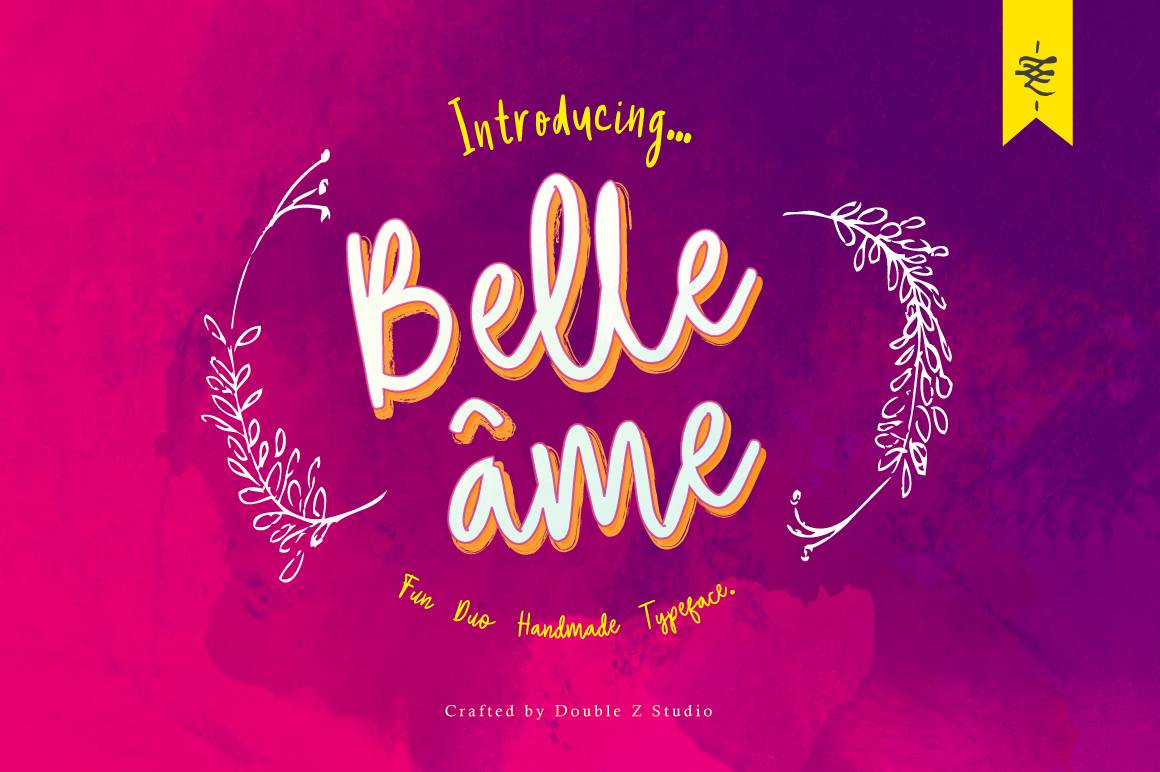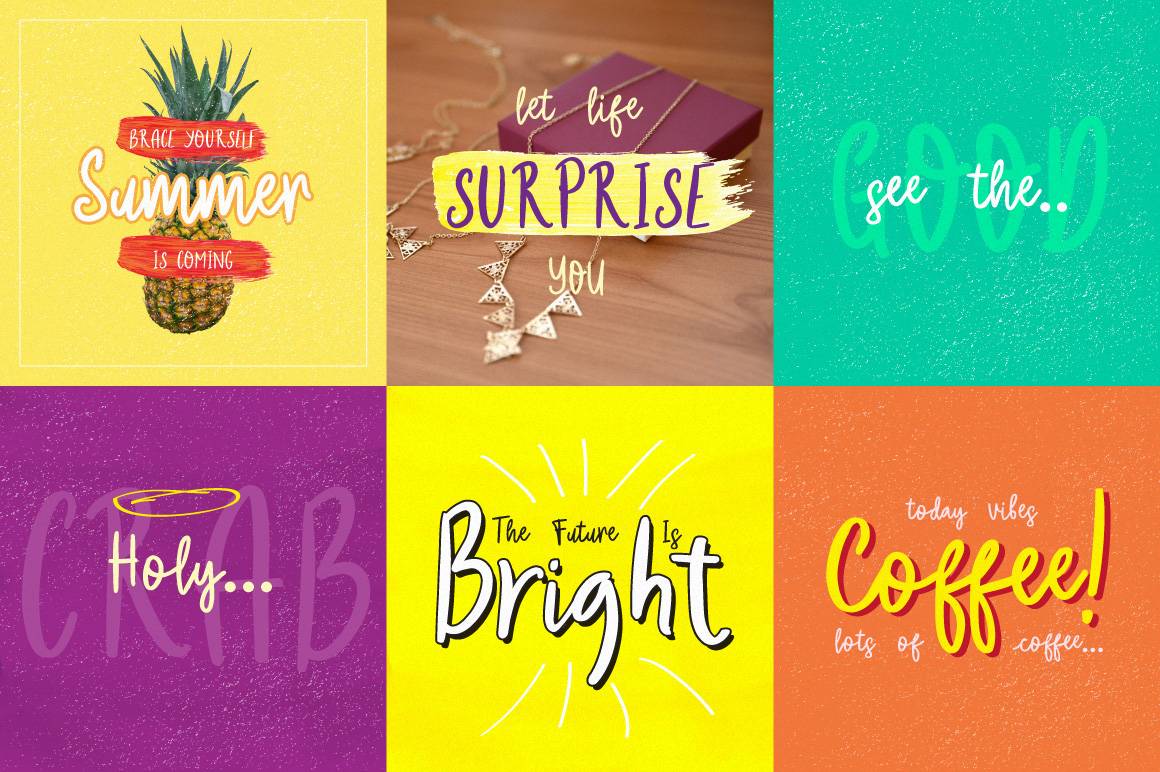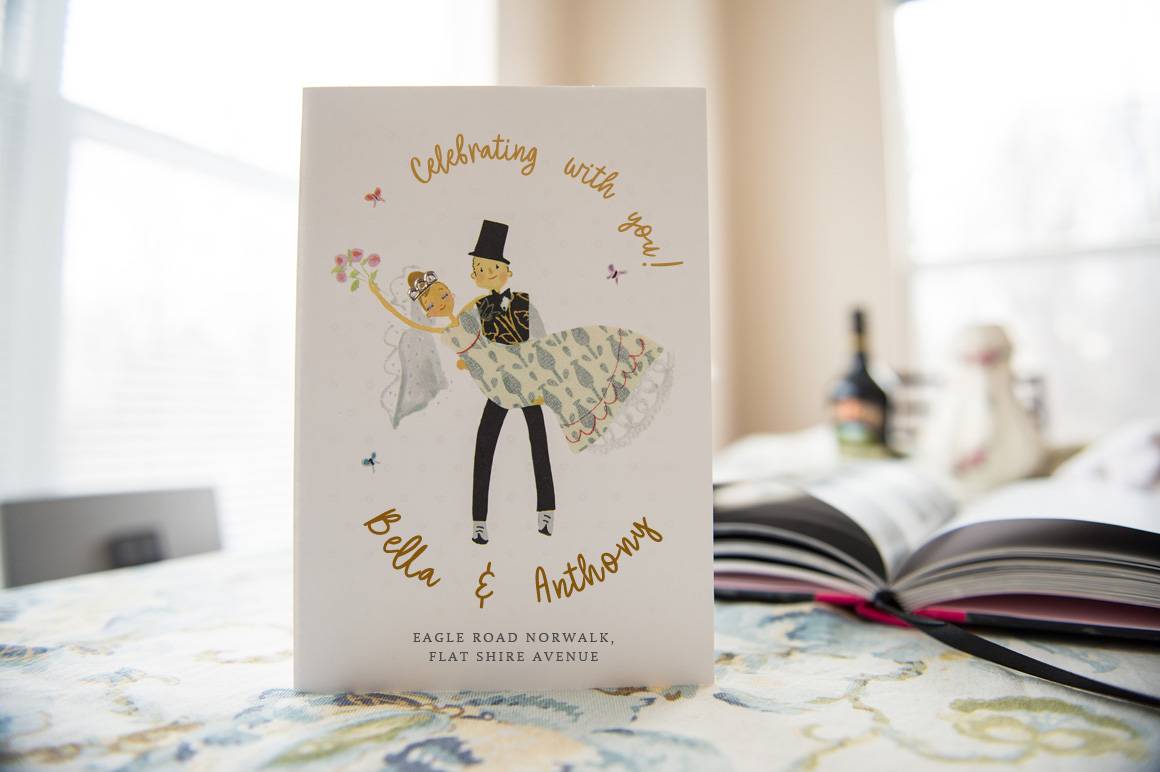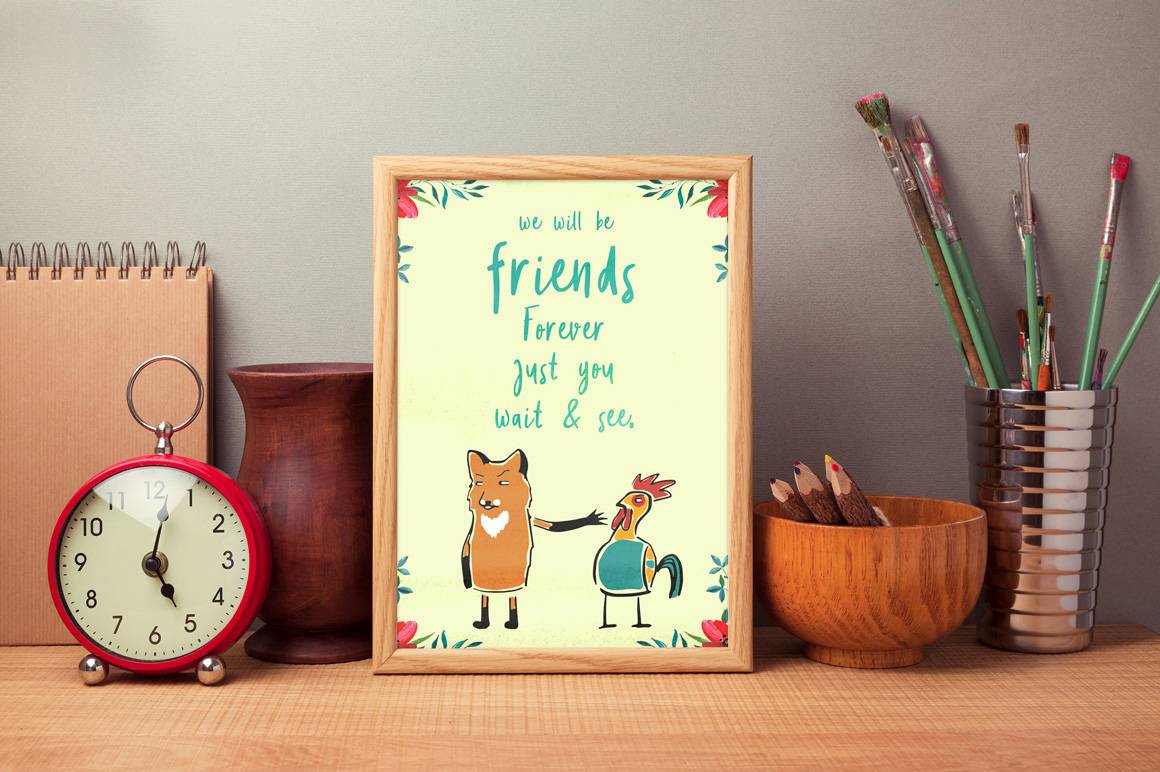
Belle âme is a lively and playful handwritten script font with a casual, friendly feel. Its tall, narrow letterforms with varying stroke widths give it an energetic yet neat appearance, making it perfect for informal and creative designs like greeting cards, logos, and social media graphics. This font brings a personal touch to any project with its charming, approachable style.
Belle âme Font
About Belle âme Font
| Font family | Belle âme Font |
| Release date | 2017-09-17 |
| Designer | Double Z Studio |